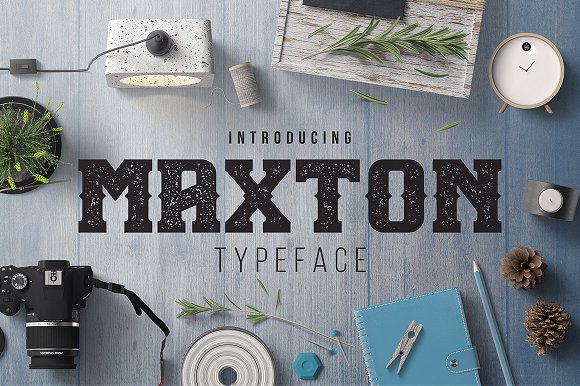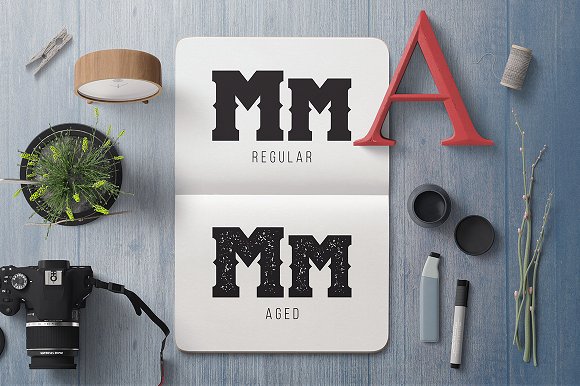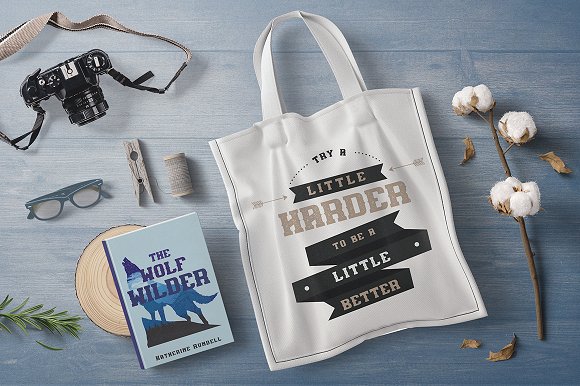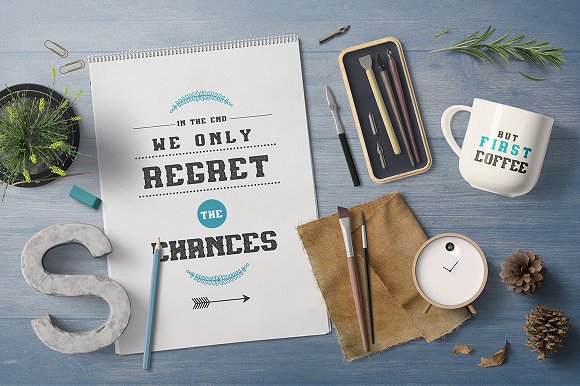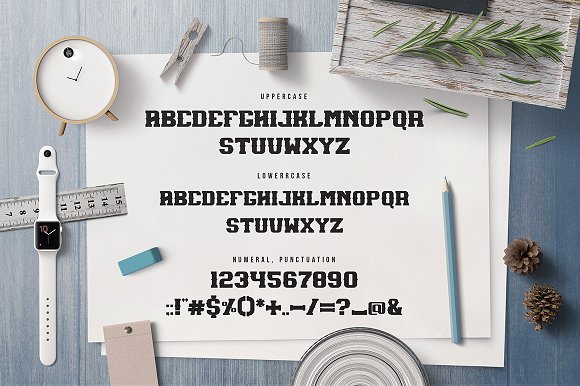
Maxton Font
Inspired by historical American cowboys, Maxton is a typeface that features bold masculinity, which makes it perfect for logos, labels, packaging, headings, quotes, etc. Maxton typeface includes uppercase and lowercase, numerals, and punctuations.